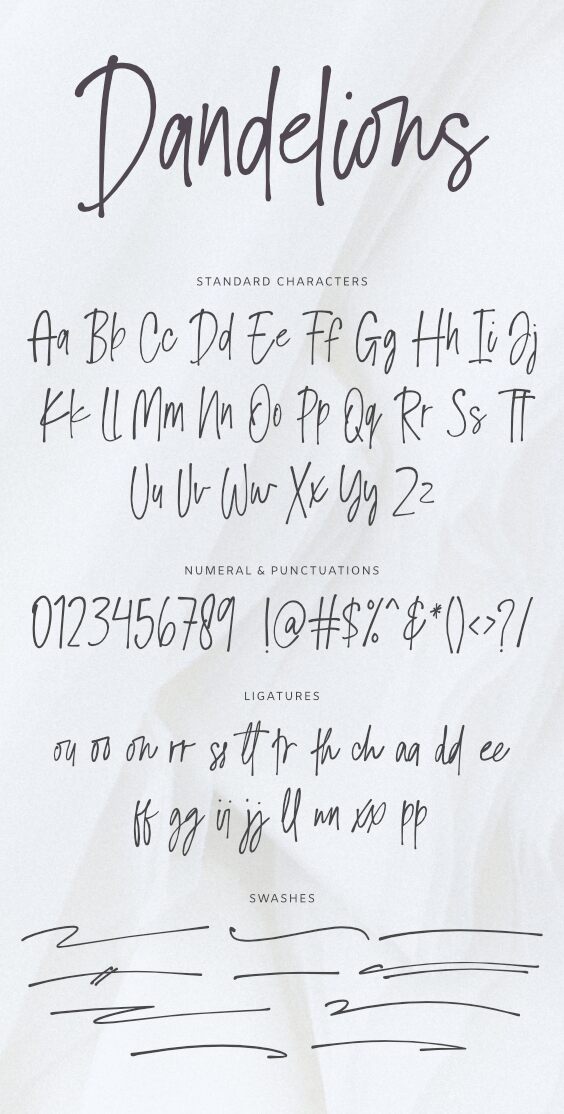
Jamaludin JK's Dandelions font is a narrow, light script with a handwritten style. Perfect for creating beautiful logos, wedding invitations or greeting cards!